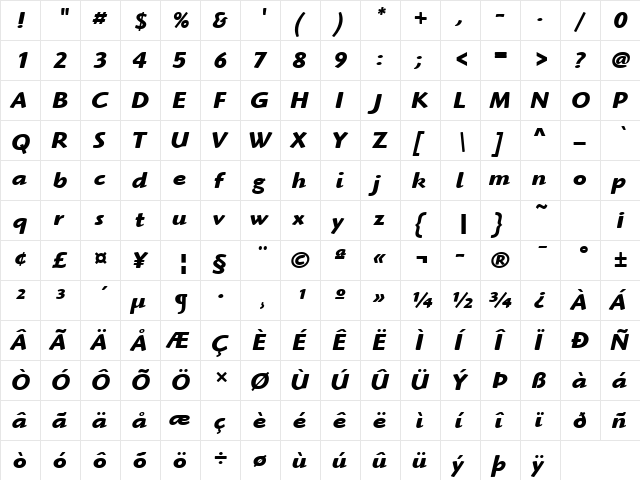
Highlander ITC TT BoldItalic
Design Context for Highlander ITC TT Typeface
Highlander ITC TT takes a measured approach to typography — its balanced proportions and neutral character make it a reliable workhorse for both digital and print work. The slanted form adds forward momentum and visual energy. Its bold stroke weight gives it real presence on the page.
Pro Tip: Try Highlander ITC TT for annotation and caption copy alongside an upright companion — the contrast in angle creates a dynamic but ordered typographic system.